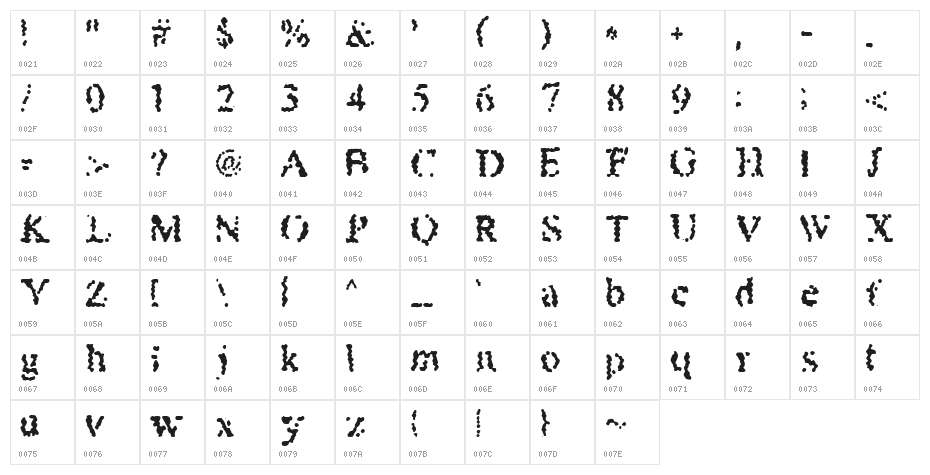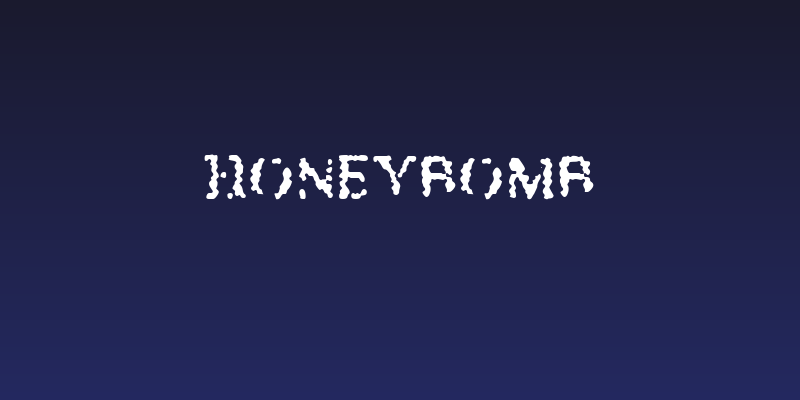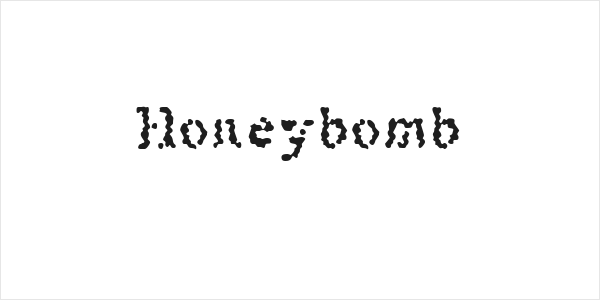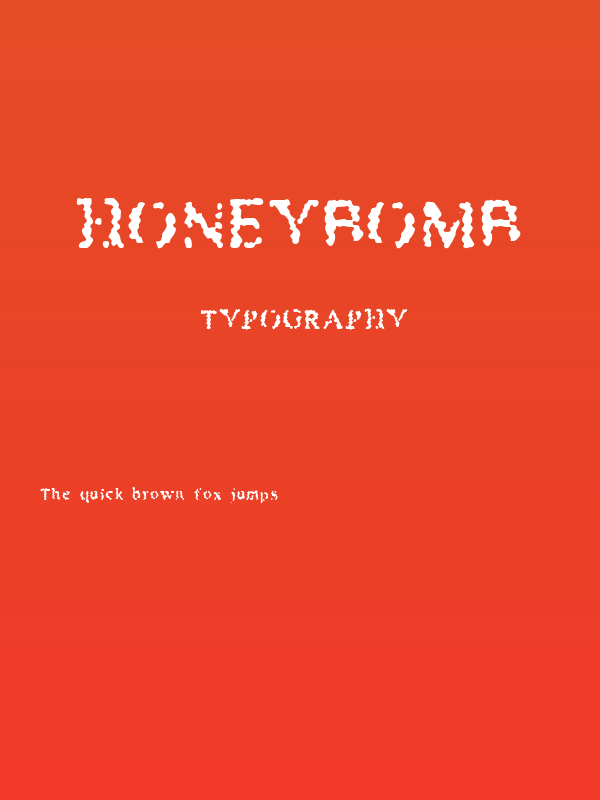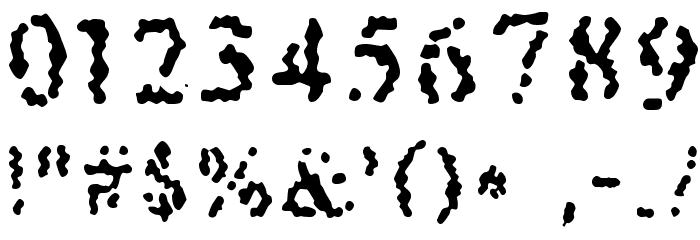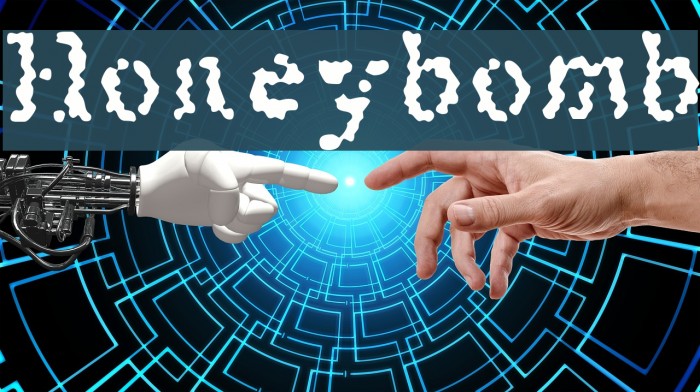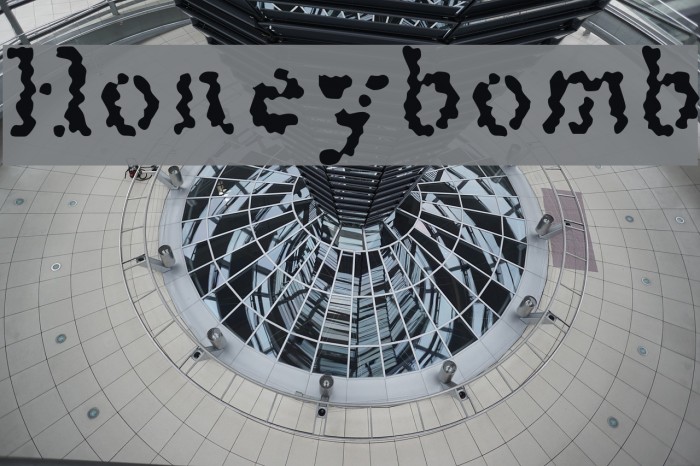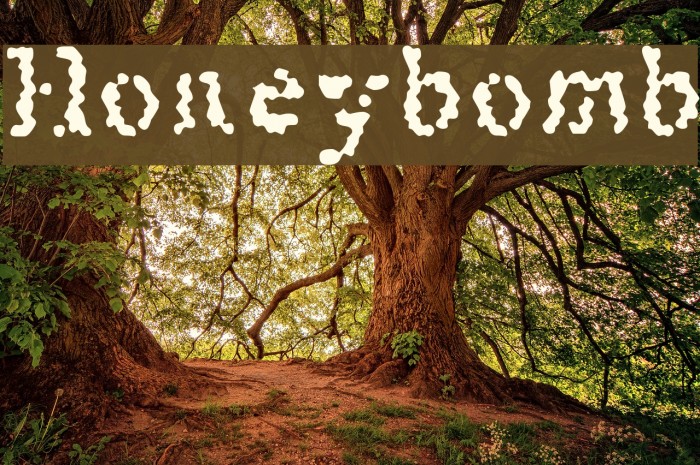
Honeybomb Font
Honeybomb Description
This font features a unique, textured appearance reminiscent of honeycomb patterns, with irregular edges and a playful, organic feel. The characters are bold and distinct, making them stand out with a handcrafted, artistic quality. The uppercase and lowercase letters maintain a consistent style, while the numbers and special characters integrate seamlessly with the overall design. This font's distinctive look makes it ideal for creative projects that require a touch of whimsy and individuality.
| Use Case | Headlines, Logos, Artistic projects |
| Proposed Projects | Ideal for creative projects such as posters, artistic branding, children's books, and unique packaging designs. |